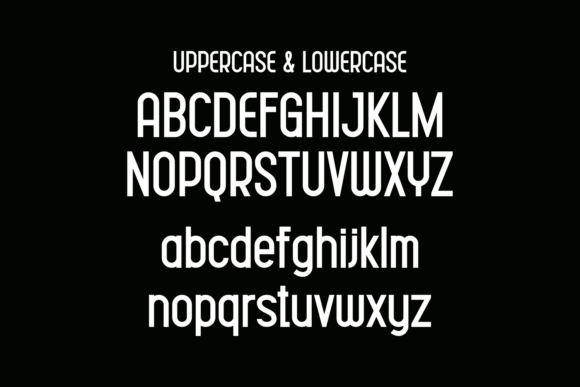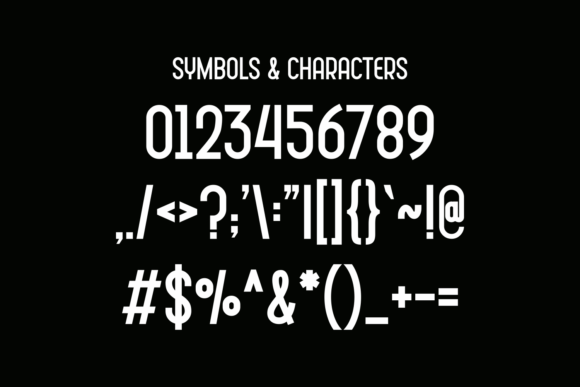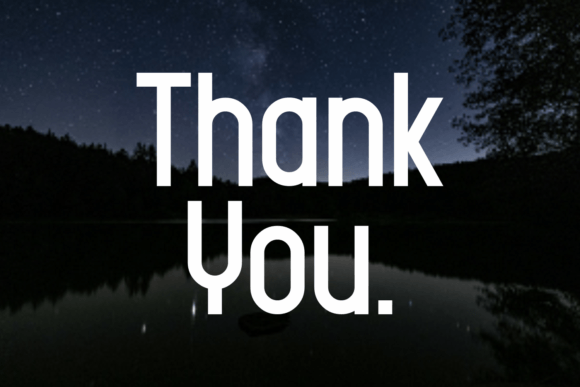
Enter the Brusan Font, a versatile and stylish typeface designed to elevate your print and digital projects. With its perfect balance of modernity and elegance, Brusan Font is ideal for branding, name cards, posters, logos, and more. Whether you’re working on a small-scale project or a large-scale artwork, this font is sure to make a statement. Its versatility and wide range of applications make it a valuable addition to any designer’s toolkit, and a must-have for anyone looking to take their designs to the next level.
- Font Family: Brusan Font is a sans-serif font family.
- Unique Characteristics: Brusan Font features a unique blend of modern and minimalist design elements, making it ideal for use in digital interfaces and print materials.
Brusan Font Review
Overall, I was quite impressed with the Brusan font. Here are some aspects that work well:
- ✨ The font has a unique and modern aesthetic that can add a touch of sophistication to any design project.
- ✨ The Brusan font is highly customizable, with a wide range of styles and weights available, making it suitable for a variety of applications.
- ✨ The font is highly legible, even at small sizes, making it perfect for body text and other content-heavy designs.
- ⚠️ The Brusan font may not be the best choice for formal or traditional designs, as its modern aesthetic may clash with these styles.
- ⚠️ The font may not be as versatile as some other fonts, and may not work well in certain contexts, such as headlines or titles.
Overall, I think the Brusan font is a solid choice for designers looking for a modern and customizable font. While it may have some limitations, its unique aesthetic and high legibility make it a great addition to any design project.
Brusan Font is ideal for creating modern and elegant designs. Some common use cases include:
– Creating invitations and wedding stationery
– Designing logos and branding materials
– Crafting digital art and illustrations
– Typesetting books and magazines